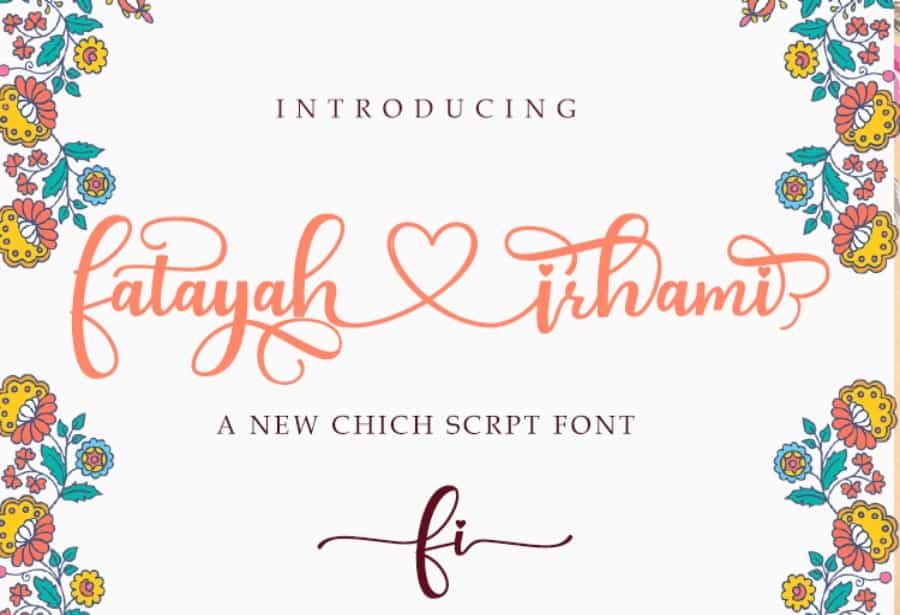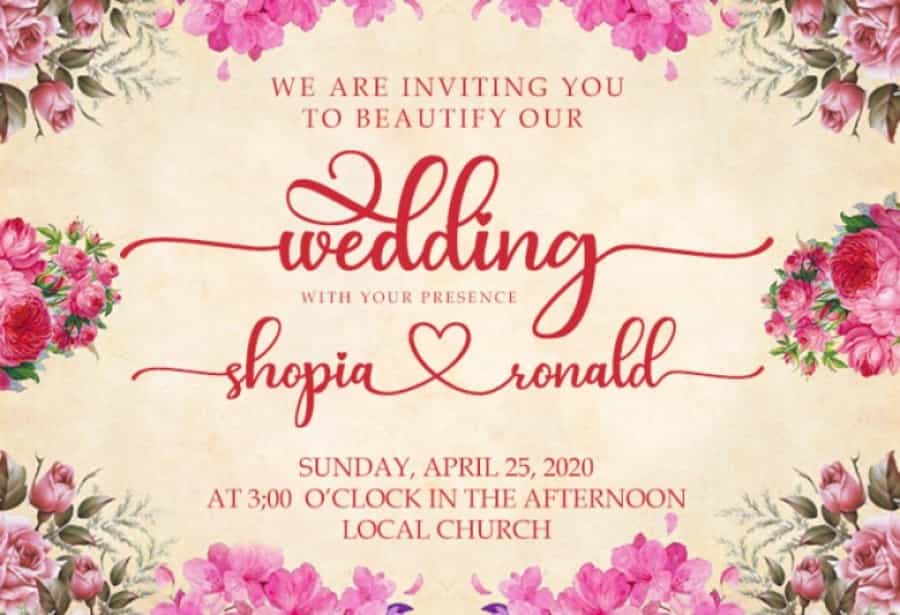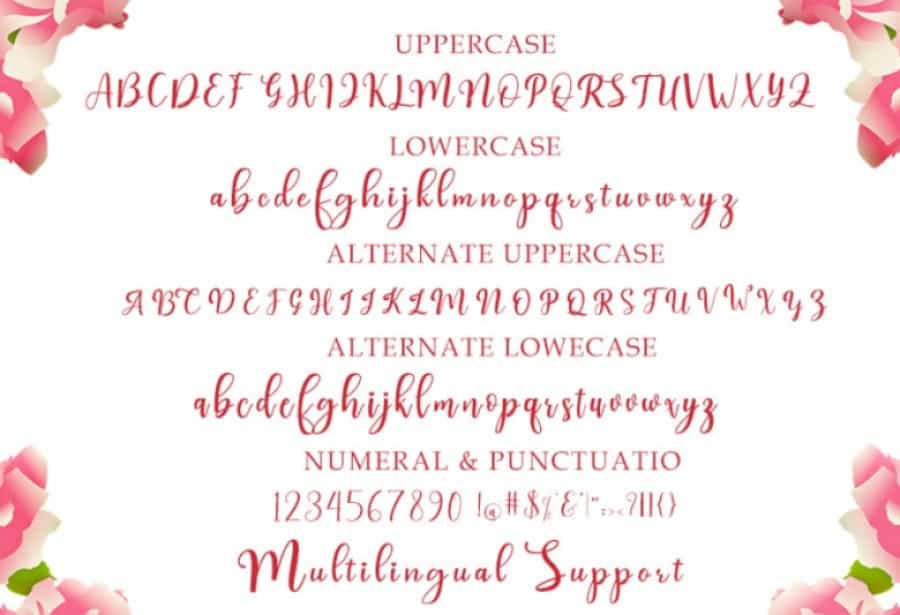
Discover Fatayah Irhami Calligraphy Script Font, part of the Calligraphy Script collection—a versatile and unique font perfect for adding a personal touch to your projects. Download it for free and enjoy crafting designs with style, from invitations to social media posts. This font is available exclusively for personal use, giving you the freedom to create without limits. Unlock your creativity with Fatayah Irhami Calligraphy Script Font today!
Fatayah Irhami Calligraphy Script Font is a joy to use and sophisticated. It is beautiful in wedding cards, thank-you cards as well as greeting cards, quotes and logos business cards, and any other design that requires an individual touches.